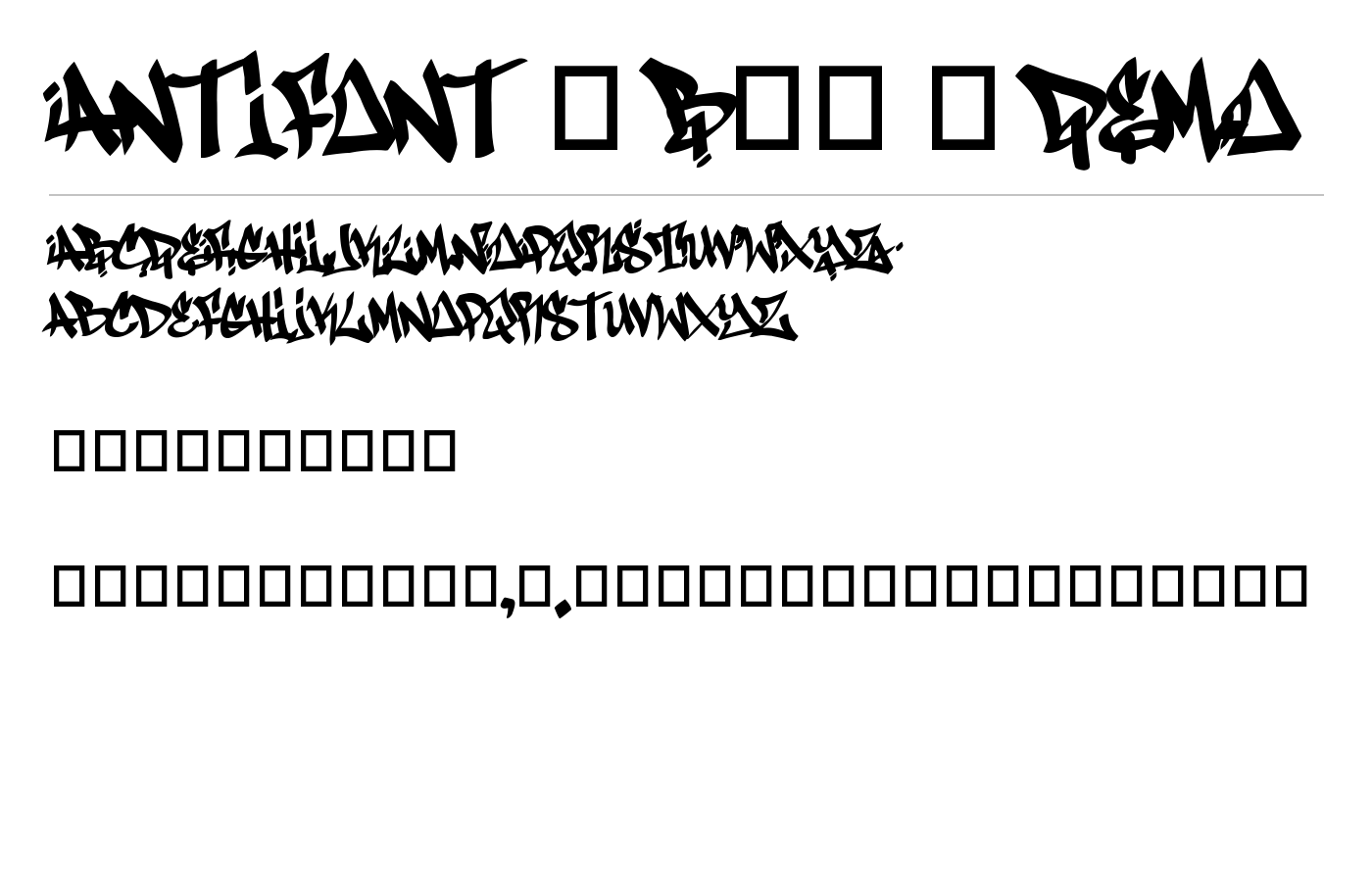
Antifont - B85 is a bold, graffiti-inspired display font with sharp, angular strokes and a highly stylized, urban character. Its irregular shapes and dynamic movement make it perfect for edgy, street-style branding, posters, and creative projects looking for a rebellious, expressive vibe. This font works best in attention-grabbing headlines rather than body text due to its decorative complexity.
Antifont - B85 - DEMO Font
About Antifont - B85 - DEMO Font